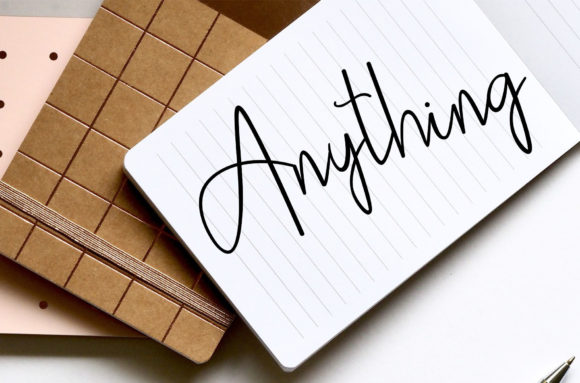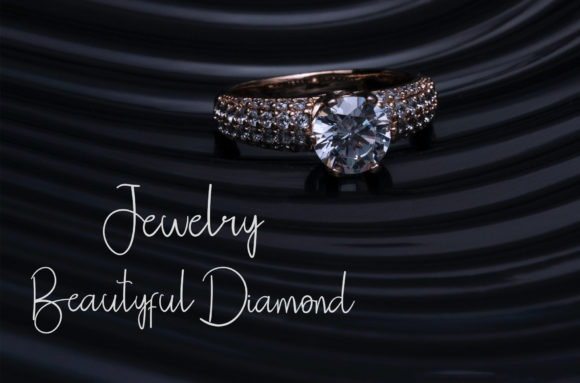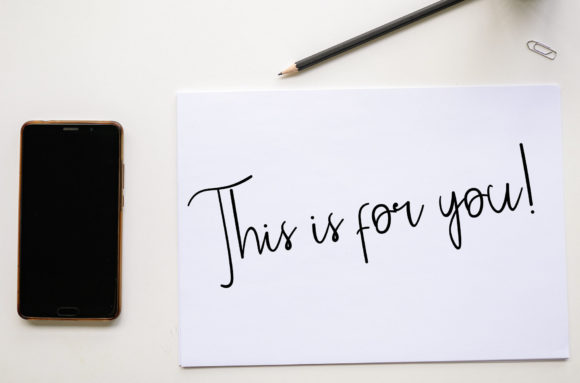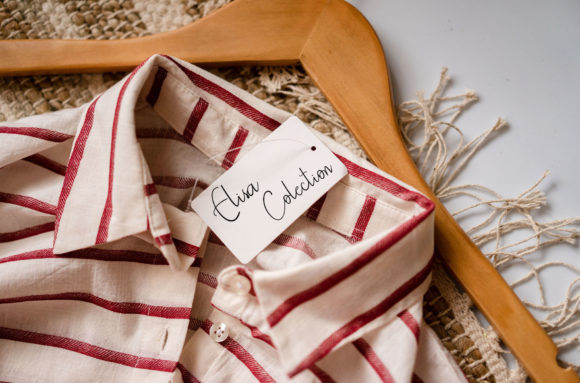
Anything Font
“Anything” is a sweet handwritten font crafted with great care to ensure it delivers the desired outcomes. Designed with meticulous attention to detail, this font offers a versatile and delightful option for various design applications. Its handwritten style adds a personal and authentic touch, making it suitable for a wide range of products.
The versatility of “Anything” allows it to be used for writing various kinds of products, adapting seamlessly to their respective needs. Whether you’re working on branding, product packaging, invitations, or any other creative project, this font brings a sweet and charming quality to your designs.
The careful craftsmanship behind “Anything” ensures that it meets expectations and delivers a pleasing visual experience. Its handwritten charm adds a touch of warmth, making it an ideal choice for projects that require a more personal and approachable feel.
In summary, “Anything” is more than just a font; it’s a sweet and carefully crafted design asset that caters to diverse design needs. Whether applied to branding or various creative projects, “Anything” stands out as a versatile and charming font that can bring a delightful touch to every design it graces.